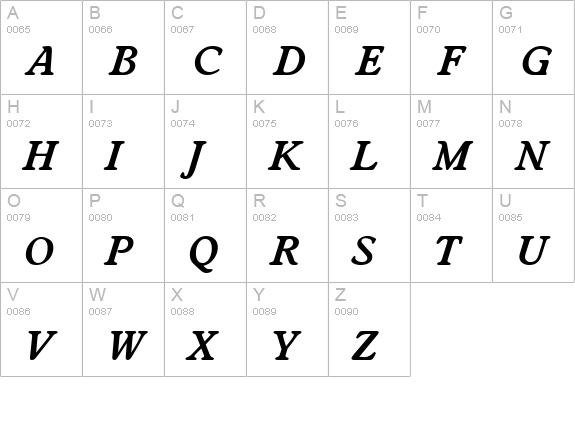
WorcesterSerial-BoldItalic Font Details
WorcesterSerial-BoldItalic is a bold and distinctive font that exudes elegance and sophistication. Its sleek and stylish design makes it perfect for a wide range of design projects, from branding to editorial design. The italicized version of this font adds a touch of flair and modernity to any text. What makes WorcesterSerial-BoldItalic even more appealing is that it is available for free download at FontsMarket.com. This means that you can easily access this stunning font and use it in your projects without any cost. Whether you're creating a professional presentation or designing a chic logo, WorcesterSerial-BoldItalic is sure to make a lasting impression. Download it now and elevate your designs with this eye-catching and versatile font.